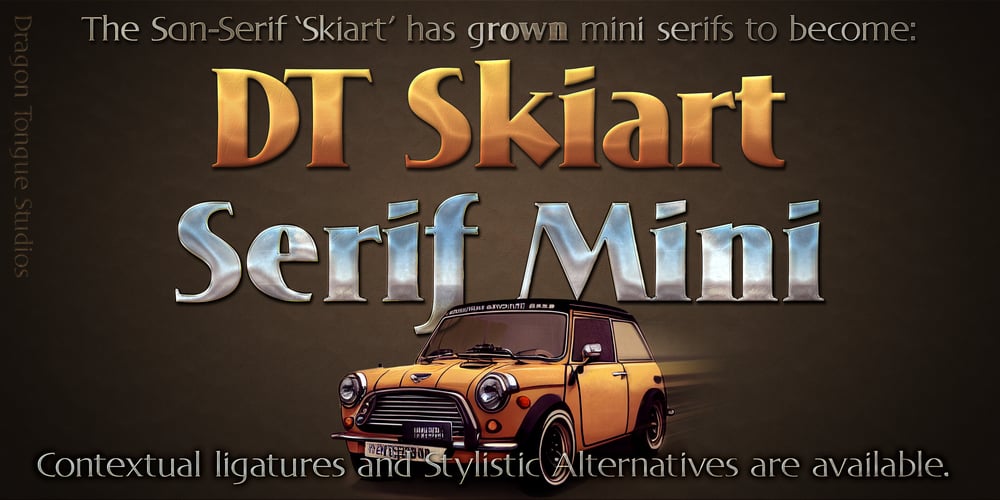
DT Skiart Serif Mini Font Family was designed by Scott Spensley and published by Dragon Tongue Foundry. DT Skiart Serif Mini contains 10 styles and family package options. ‘Skiart Serif Mini’ is now available online.Originally inspired by the san serif font ‘Skia’ by Mathew Carter for Apple. ‘Skiart’ was designed to feel more like a serifed font, but without any serifs. It took a step between sans serif and serif fonts. Next on the path towards a serif font comes Skiart Serif Mini, with tiny serifs added. This is a true serif font, all be it on the small side. It remains fully readable and feels as clean and normal as any of the best body copy serifs, and yet still has the strong solid bones of all the other Skiart font familys. If compared to one of the more commonly used serifs like ‘Times New Roman’, the ‘Skiart Serif Mini’ lowercase is more open with a taller x-height, increasing its readability and friendliness. The serifs are smaller and less distracting. They are not pretending to be ligatures.Where ‘Times’ makes its p q b d forms out of a barely touching oval and stem, the ‘Serif Mini’ forms are much more firmly attached, appearing clearly as single letters. The standard setting for the g’s are round single storied, (the italic a’s are also), feeling warmer and more inviting in the ‘Serif Mini’ font. Much more friendly than the stuffy double storied versions in fonts such as ‘Times’ etc.